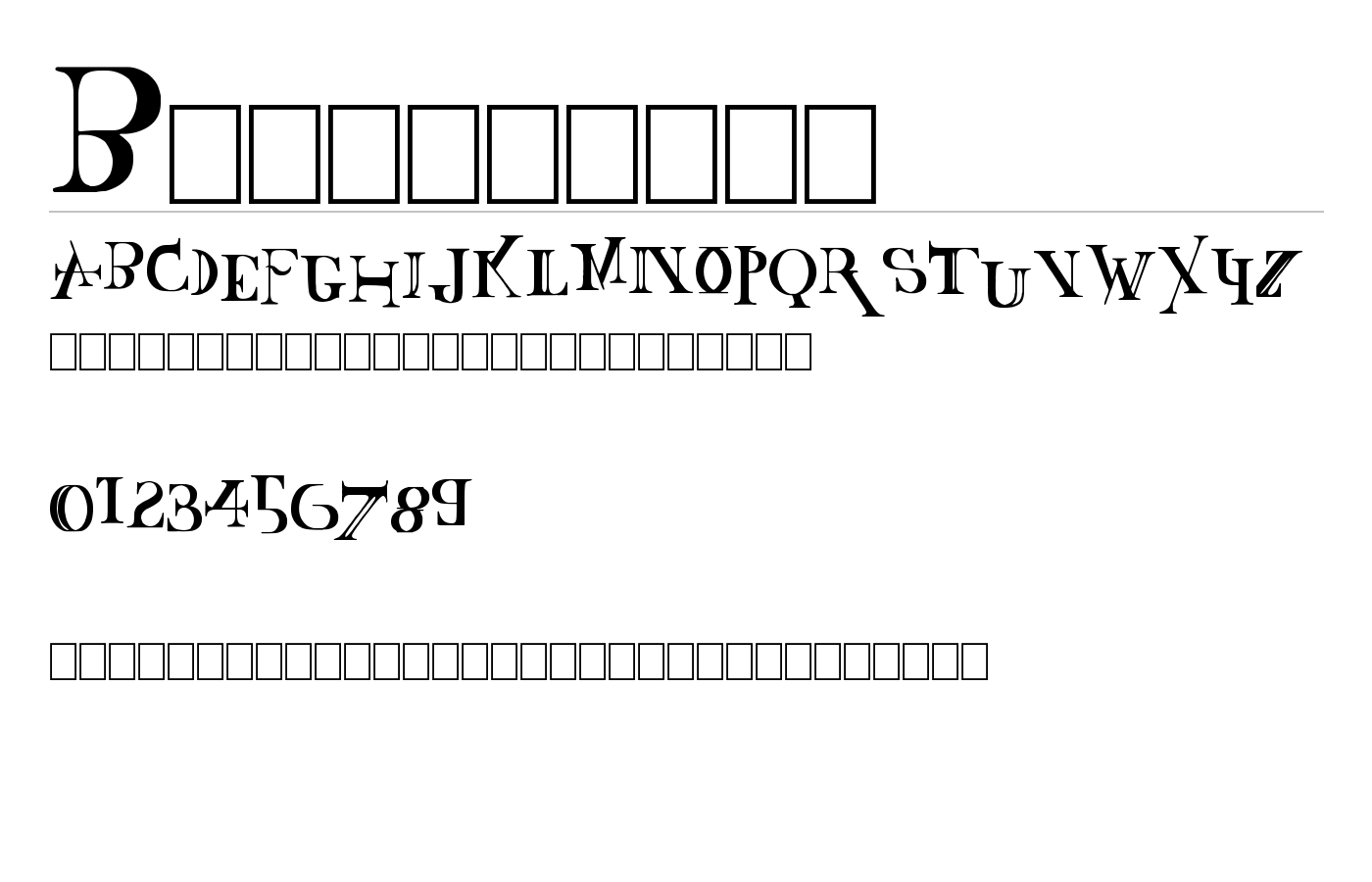
Baskertown is a distinctive serif font with a strong vintage character, featuring sharp, high-contrast strokes and unique, artistic letterforms that give it an elegant yet quirky feel. Its narrow width and decorative details make it ideal for eye-catching headlines, logos, or branding projects that seek a blend of classic sophistication and creative flair. This font works best in settings where personality and style are paramount, such as editorial design or upscale packaging.
Baskertown Font
About Baskertown Font